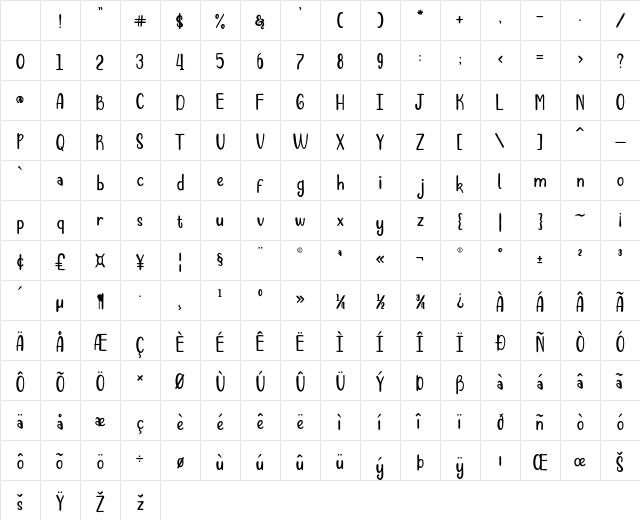
Jangkids has an approachable, lighthearted character - its loose, expressive forms are well-suited to children's content, casual branding, and fun-first design.
Font Pairing: Pairs well with a rounded or humanist sans for body copy, maintaining the friendly tone without relying on Jangkids to carry extended reading.
Pro Tip: Use Jangkids at larger display sizes where its expressive character can land. Pair with a clean, simple sans for body copy to maintain readability.